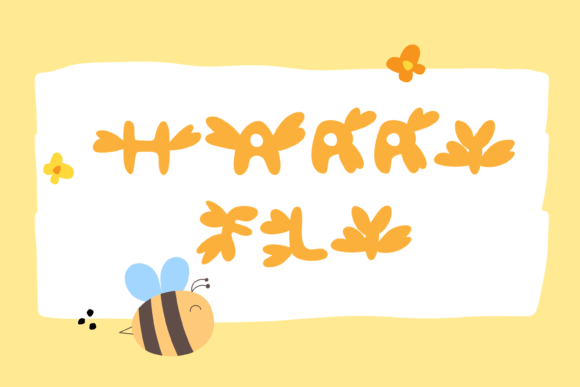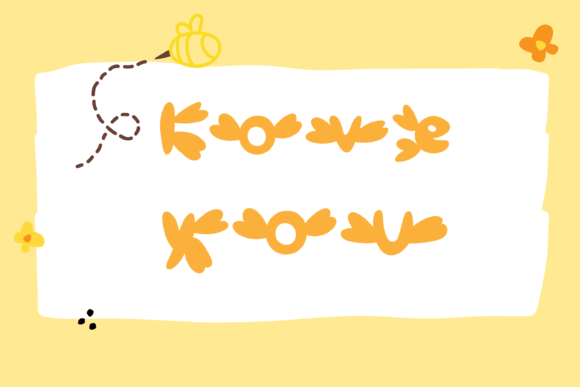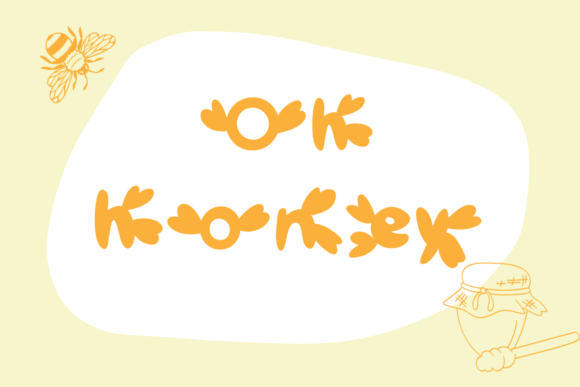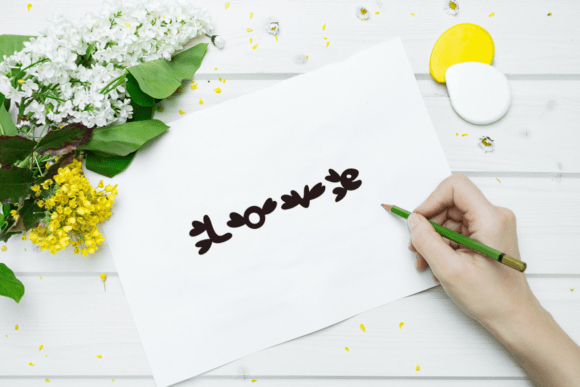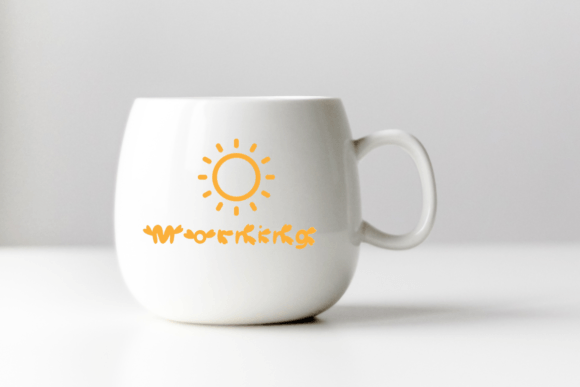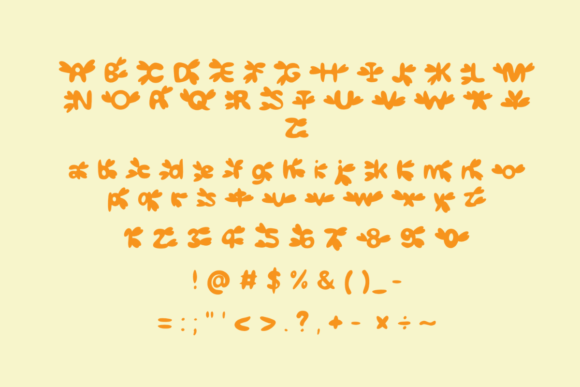
Bee Font: The Sweetest Addition to Your Design Projects
Are you looking for a font that’s as unique as it is charming? Look no further than Bee Font, a delightful typeface that’s perfect for projects related to bees, honey, and wings. With its distinctive wing design, Bee Font is sure to add a touch of whimsy and personality to your designs.
What is Bee Font?
Bee Font is a specially designed font that features wings, making it an ideal choice for projects that require a touch of sweetness and playfulness. The font’s design is inspired by the humble bee, with its wings cleverly integrated into the letterforms. The result is a font that’s both visually striking and highly versatile.
Perfect for Bee-Themed Projects
Bee Font is, of course, perfect for projects related to bees, honey, and wings. Whether you’re designing a logo for a beekeeper, creating a label for a honey product, or simply want to add a touch of bee-themed charm to your design, Bee Font is the perfect choice. The font’s wing design adds a delightful touch of whimsy, making it sure to delight audiences of all ages.
But It’s Not Just for Bee Projects!
While Bee Font is certainly perfect for bee-themed projects, its versatility means it can be used for a wide range of design applications. Use it to add a touch of playfulness to your card designs, flyers, banners, book titles, and social media graphics. The font’s unique wing design makes it a great choice for projects that require a bit of personality and flair.
Design Possibilities are Endless
With Bee Font, the design possibilities are endless. Here are just a few ideas to get you started:
- Create a sweet and charming logo for a children’s party or event
- Design a set of bee-themed stickers or washi tape
- Add a touch of whimsy to your social media graphics or blog posts
- Create a beautiful and eye-catching book title or cover design
- Use it to create a set of cute and playful business cards or stationery
Why Choose Bee Font?
So why choose Bee Font for your next design project? Here are just a few reasons:
- Unique and eye-catching design: The wing design of Bee Font is sure to grab attention and add a touch of personality to your designs.
- Highly versatile: Bee Font can be used for a wide range of design applications, from bee-themed projects to more general design projects.
Get Creative with Bee Font!
Tips for Using Bee Font
Here are a few tips for getting the most out of Bee Font:
- Experiment with different colors and textures: Bee Font looks great in a variety of colors and textures, so don’t be afraid to experiment and find the perfect combination for your design.
- Use it in combination with other fonts: Bee Font pairs well with a variety of other fonts, so try combining it with different typefaces to create a unique and eye-catching design.
- Don’t be afraid to get creative: Bee Font is a versatile font that can be used in a wide range of design applications, so don’t be afraid to think outside the box and come up with something truly unique.